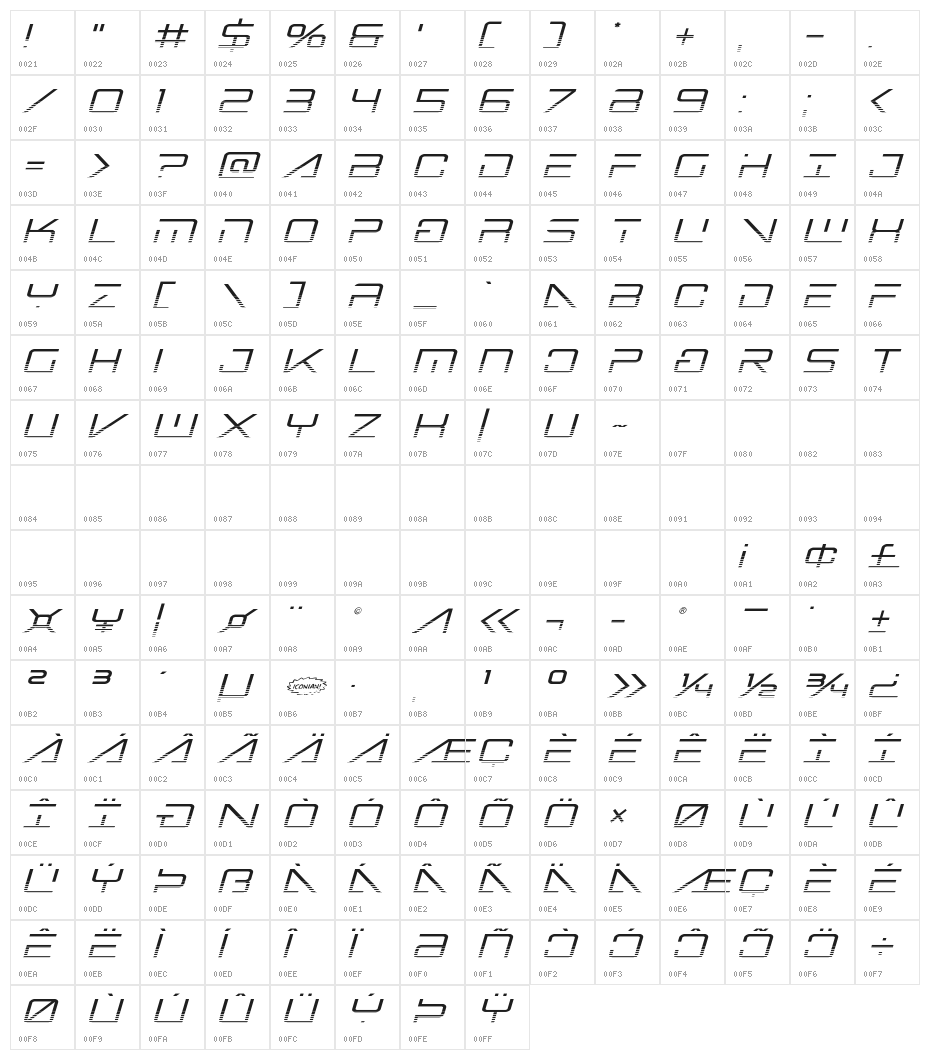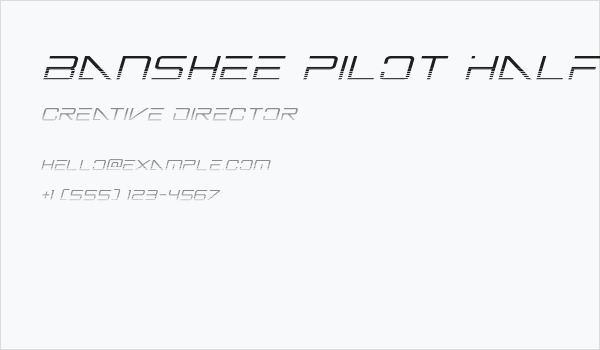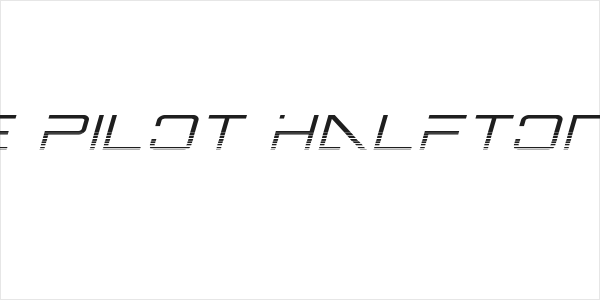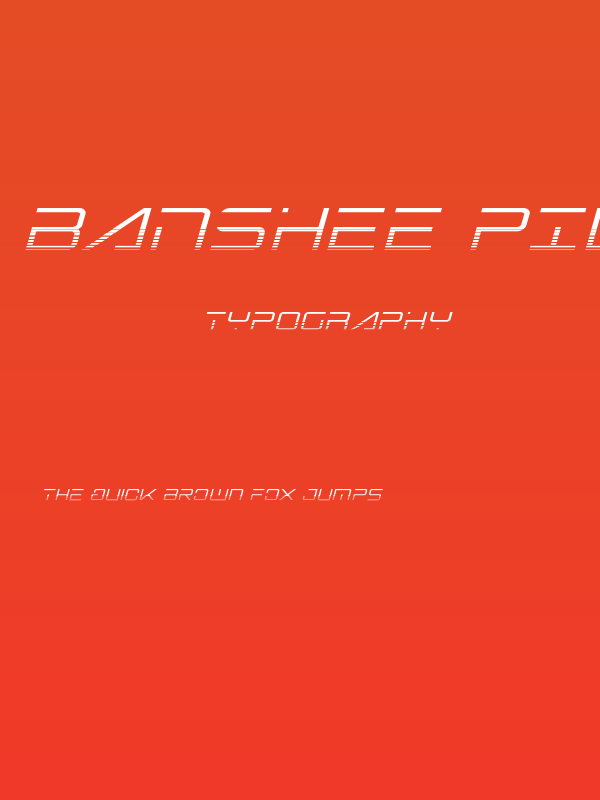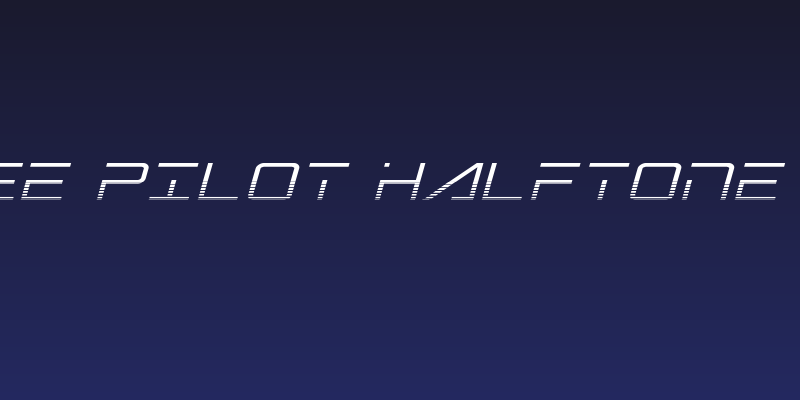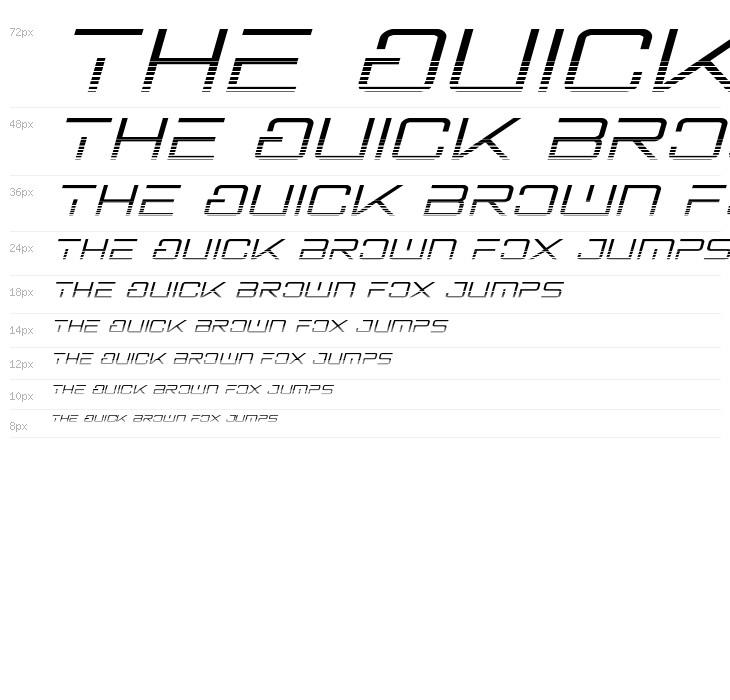
Banshee Pilot Halftone Italic Font
Banshee Pilot Halftone Italic Description
This font features a futuristic and dynamic design with a halftone effect that gives it a sense of motion and speed. The characters are italicized, adding to the forward-leaning, energetic appearance. Each letter is composed of horizontal lines that create a unique visual texture, making it stand out in digital and print media. The font maintains a consistent geometric structure, with sharp angles and clean lines that enhance its modern aesthetic. It is particularly effective for projects that require a high-tech or sci-fi theme, as its distinctive style captures attention and conveys a sense of innovation.
| Proposed Projects | Ideal for sci-fi themed posters, video game titles, technology branding, and futuristic event flyers. |